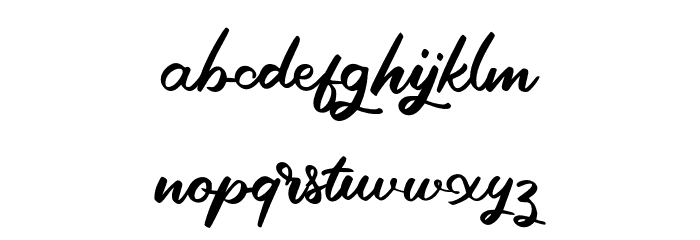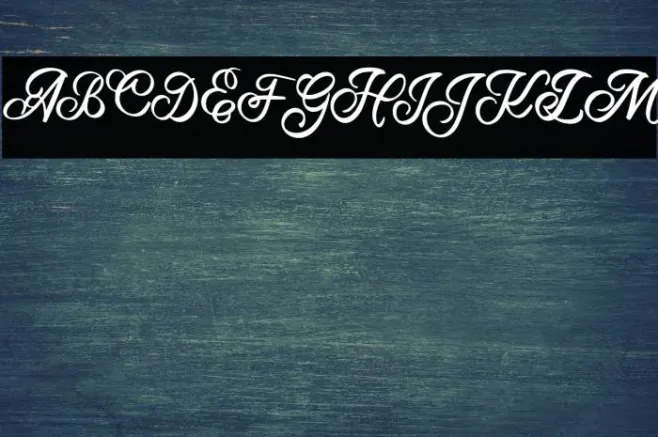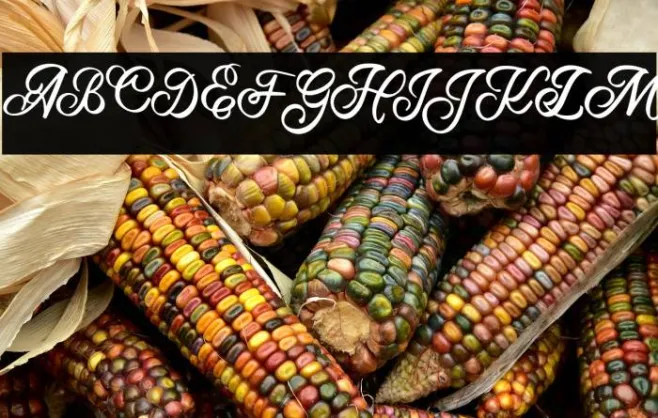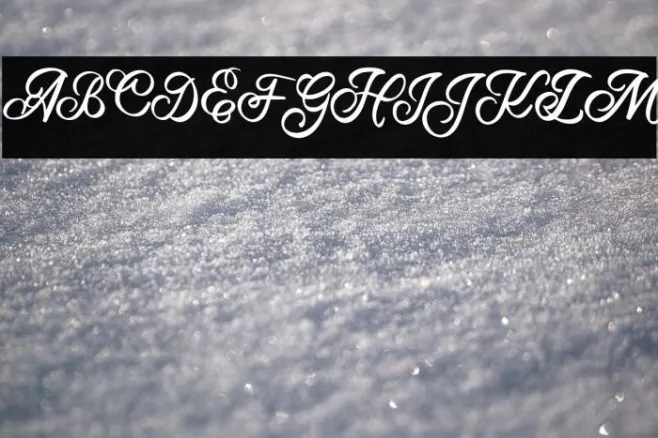
AellaFREE Font
This font features an elegant script style with flowing, interconnected letters that evoke a sense of sophistication and grace. The uppercase letters are ornate, with elaborate loops and curves, while the lowercase letters maintain a more straightforward yet still cursive appearance. The overall design is reminiscent of traditional calligraphy, offering a classic and timeless feel. The strokes are consistent in thickness, providing a balanced and harmonious look. This font is well-suited for projects that require a touch of elegance and formality, such as wedding invitations, formal event programs, or upscale branding materials.
An elegant script font with flowing, interconnected letters and a classic calligraphic style.
- Font: AellaFREE
- Proposed Projects: Ideal for wedding invitations, formal event programs, upscale branding, and elegant stationery.
- Category: Script
- Overall Style: Classic